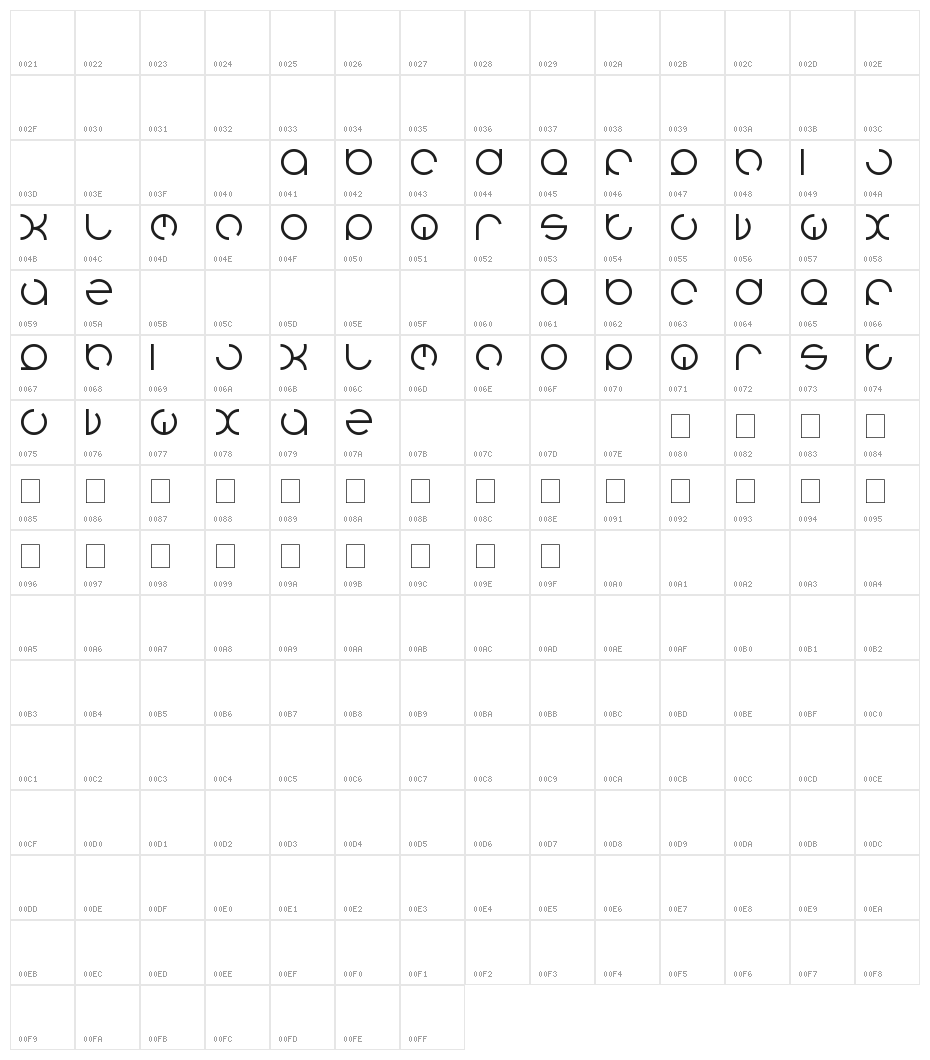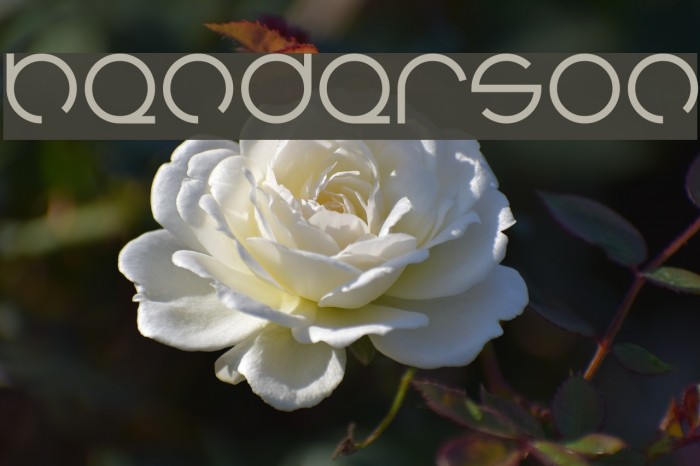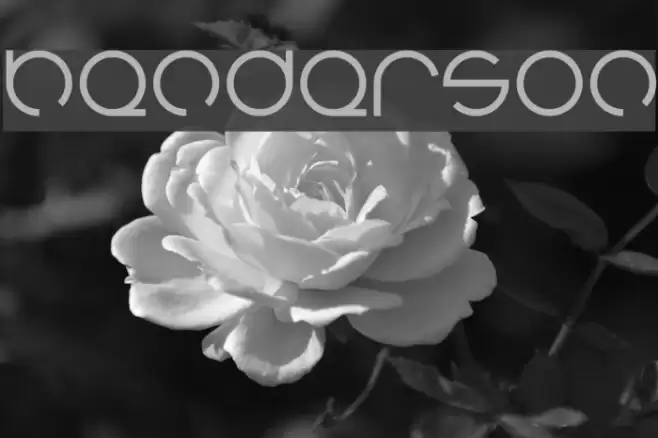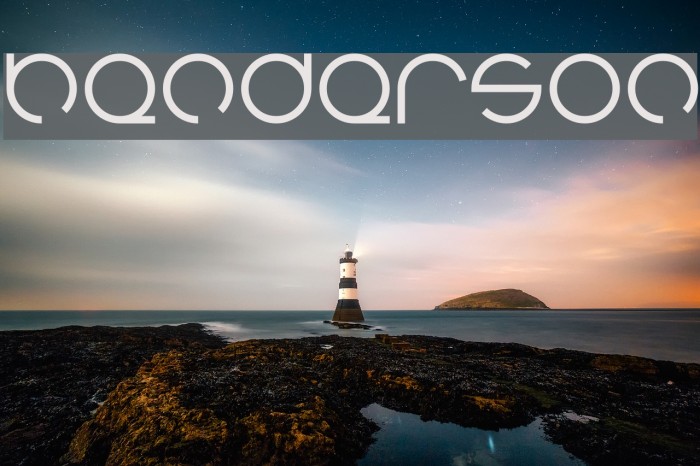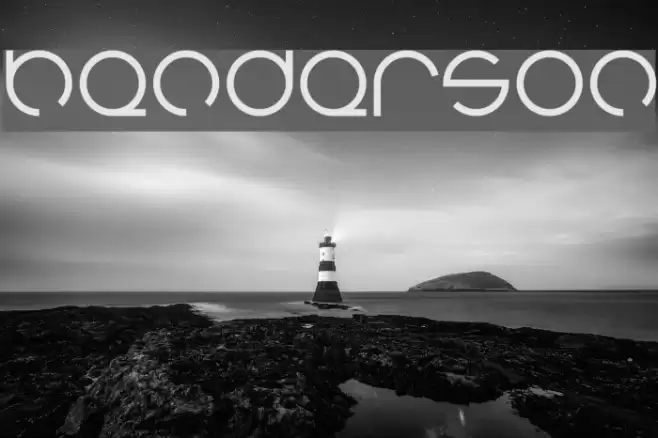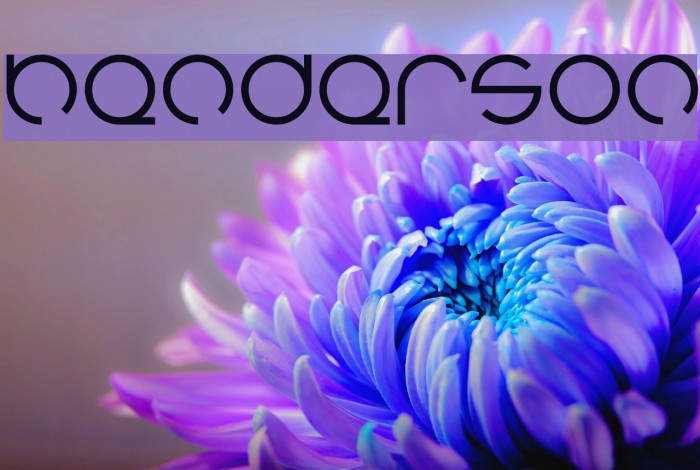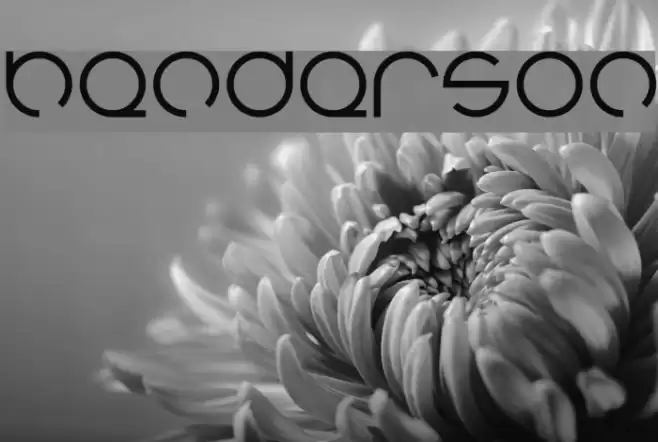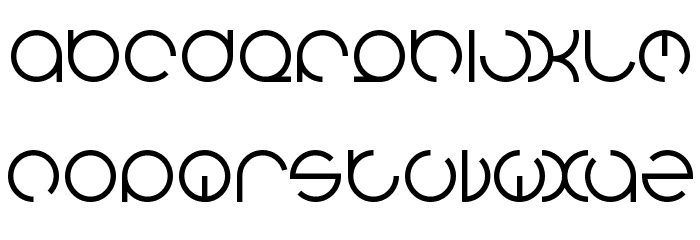
henderson Font
henderson Description
This font features a unique and modern design with a futuristic flair. The characters are composed of smooth, continuous lines that create a sense of fluidity and motion. The rounded edges and geometric shapes give it a sleek appearance, making it stand out in any design. The uppercase and lowercase letters maintain a consistent style, with a focus on symmetry and balance. The numbers and special characters are designed to complement the alphabet, ensuring a cohesive look across all text elements. This font is ideal for projects that require a contemporary and innovative touch.
| Use Case | Logos, Headlines, Posters |
| Proposed Projects | Ideal for tech branding, modern advertising, futuristic posters, and digital media. |